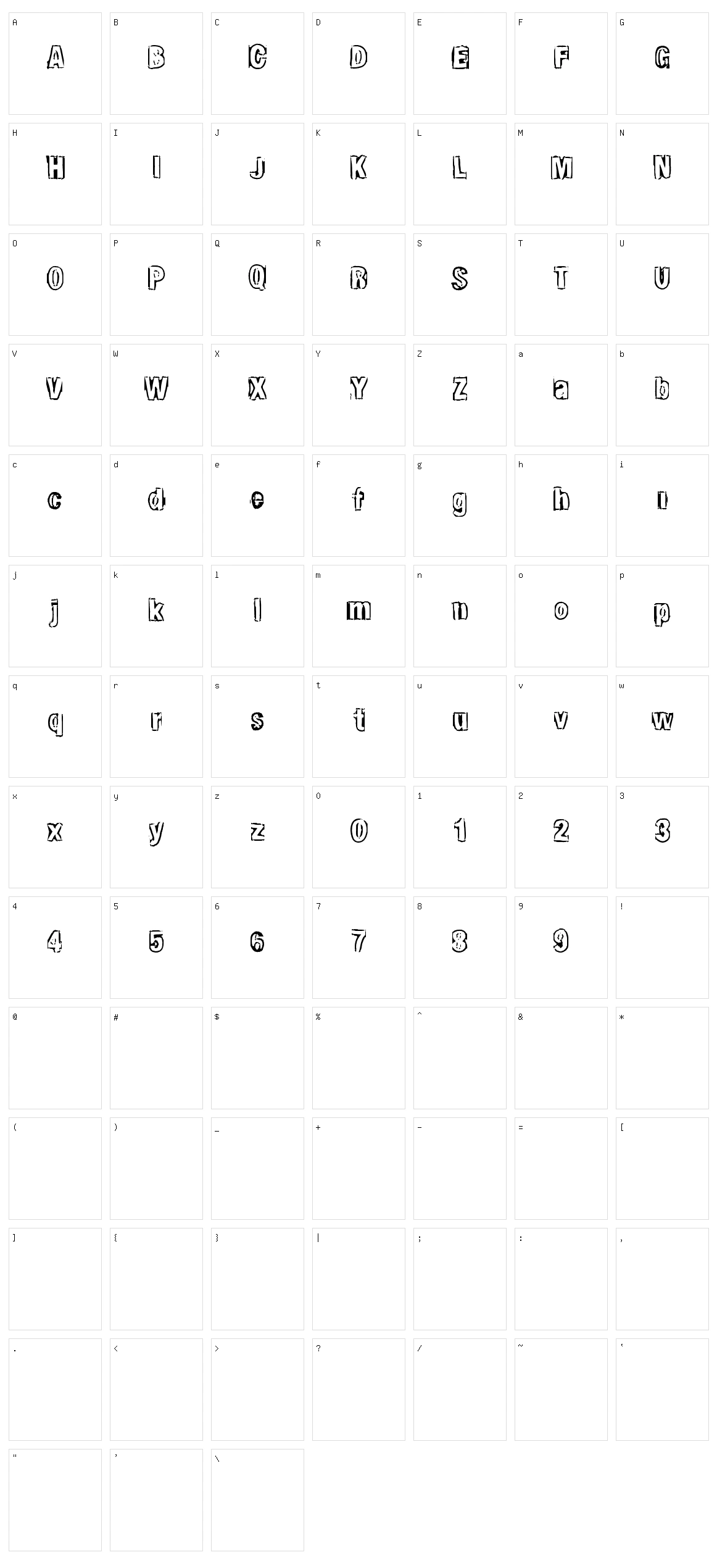
The free font Shady Walk is carefully designed by Xerographer Fonts, showcasing a thoughtful balance of creativity and usability and falls under the Eroded font style. When you download the ZIP file, it contains only 47.74 KB of font files, making it lightweight and quick to download. Please review the license details below to understand permitted usage and distribution rights. If license information is not available, we recommend using this font for personal projects only or contacting the author directly for commercial usage permissions.